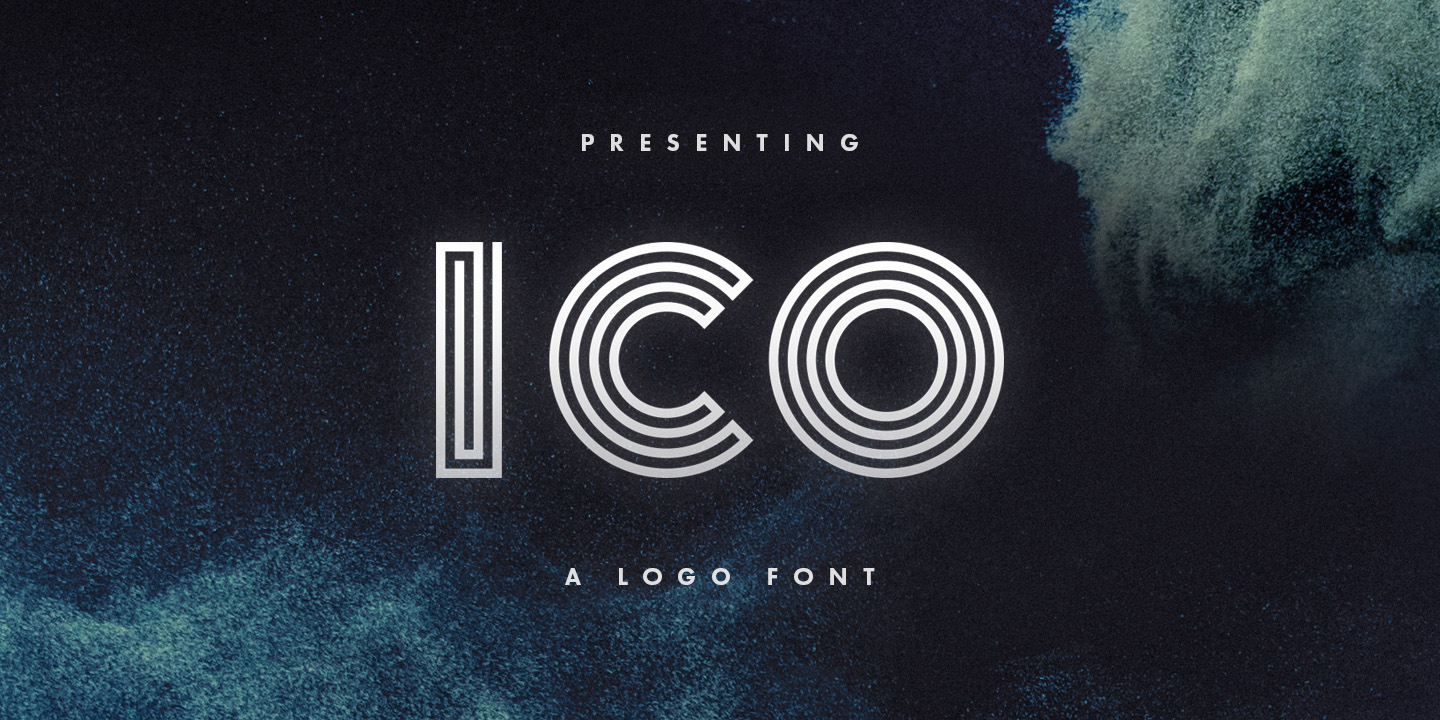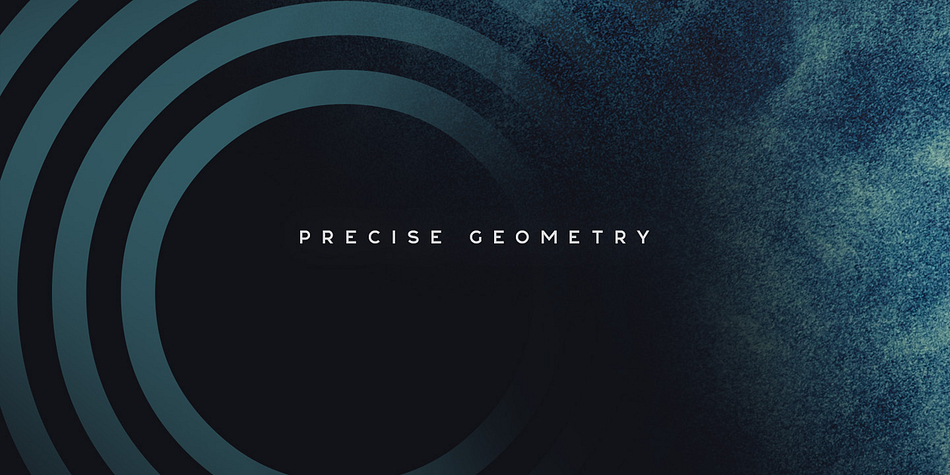
ICO
Ico is a display sans font published by Tugcu Design Co.
Ico is a maze font with detailed letters that work great as logos or intricate, attention grabbing titles.
It features uppercase letters, numbers and punctuation.
Most letters also have alternate versions that you can toggle with Caps Lock.